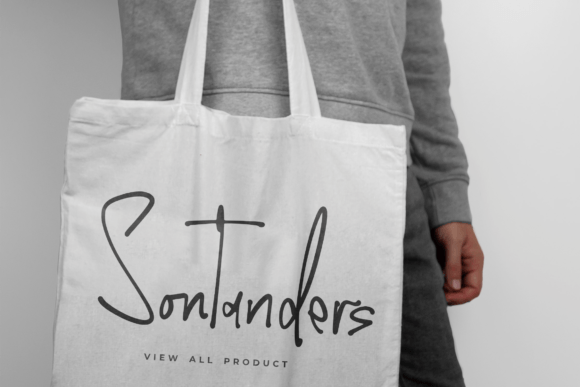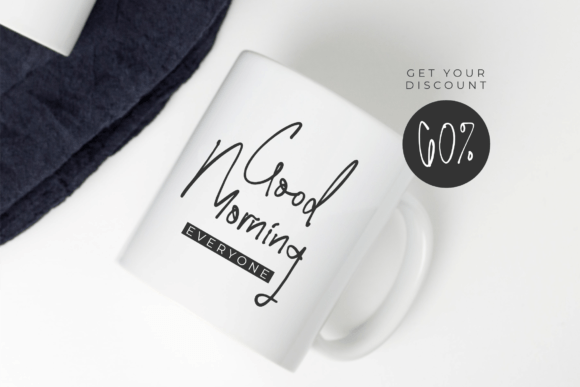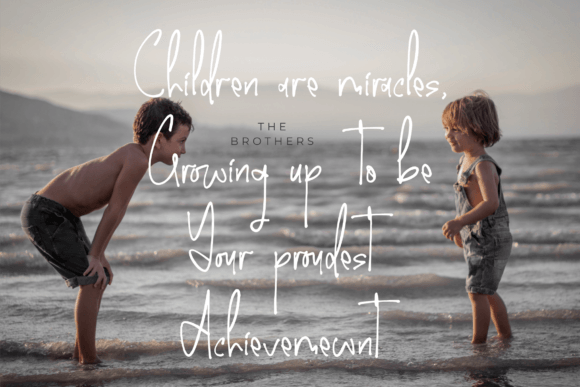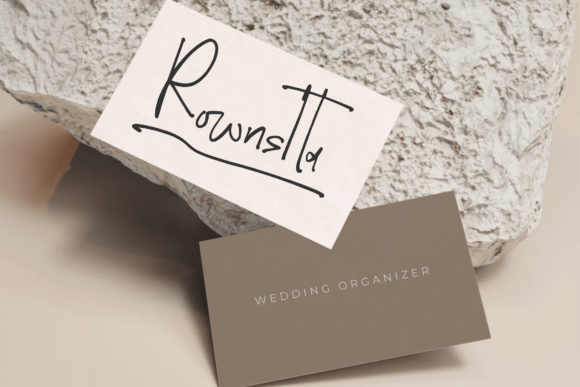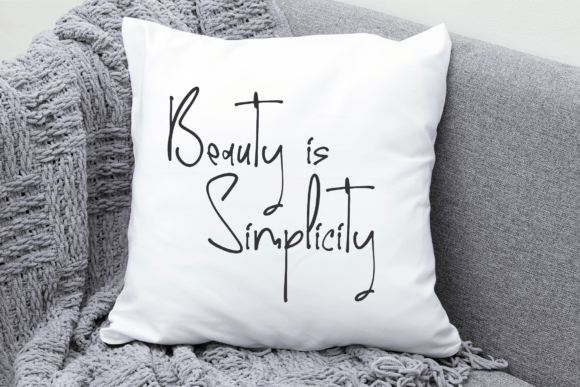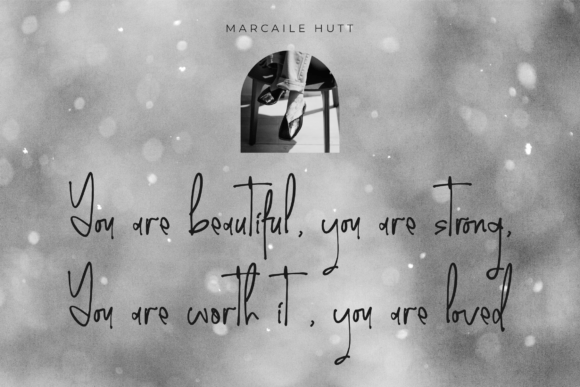
Introducing Blowmytten Font: Elevate Your Designs with Elegance
Are you on the hunt for a font that exudes elegance and sophistication? Look no further than Blowmytten, a stunning script font that’s perfect for a wide range of design projects. In this article, we’ll dive into the world of Blowmytten, exploring its features, uses, and benefits for designers and crafters alike.
What is Blowmytten Font?
Blowmytten is a beautiful script font that’s designed to add a touch of elegance to any design project. Its flowing lines, intricate details, and classic charm make it an ideal choice for creating visually stunning designs. Whether you’re working on a logo, branding project, or homeware design, Blowmytten is sure to impress.
Features of Blowmytten Font
So, what makes Blowmytten stand out from the crowd? Here are just a few of its key features:
- Elegant script design: Blowmytten boasts a beautiful, flowing script design that’s perfect for creating sophisticated and eye-catching text.
- High-quality lines: The font features high-quality lines that are crisp and clear, making it perfect for both digital and print designs.
- Versatile: Blowmytten is a versatile font that can be used for a wide range of design projects, from logos and branding to homeware and product packaging.
Uses of Blowmytten Font
So, what can you use Blowmytten for? The possibilities are endless! Here are just a few ideas to get you started:
- Logos and branding projects: Create a lasting impression with a custom logo or branding project that showcases your business’s personality and style.
- Homeware designs: Add a touch of elegance to your homeware designs, from stationery to throw pillows and more.
- Product packaging: Stand out on store shelves with eye-catching product packaging that features the Blowmytten font.
- Mugs and quotes: Create inspiring quotes or funny sayings on mugs and other products that are sure to bring a smile to someone’s face.
- Posters and shopping bags: Create stunning posters and shopping bags that showcase your brand’s personality and style.
- T-shirts and book covers: Design custom t-shirts and book covers that feature the Blowmytten font and make a lasting impression.
- Name cards and invitation cards: Create beautiful name cards and invitation cards that set the tone for any special event.
- Greeting cards and labels: Add a personal touch to your greeting cards and labels with the Blowmytten font.
- Photography and watermarks: Use Blowmytten to add a touch of elegance to your photography and watermarks.
- Special events: Create custom designs for special events, such as weddings, birthdays, and anniversaries.
Benefits of Using Blowmytten Font
So, why choose Blowmytten for your design projects? Here are just a few benefits of using this stunning script font:
- Adds elegance and sophistication: Blowmytten adds a touch of elegance and sophistication to any design project, making it perfect for high-end brands and designers.
- Versatile and flexible: The font is versatile and flexible, making it easy to use for a wide range of design projects.
- High-quality design: Blowmytten features high-quality lines and a beautiful script design that will make your designs stand out.
- Easy to read: Despite its elegant design, Blowmytten is easy to read, making it perfect for body text and headlines.